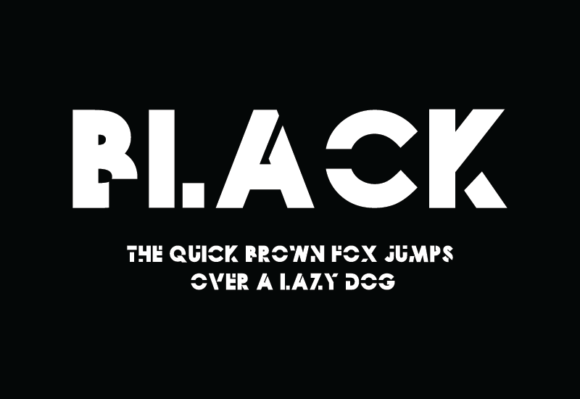
The Power of Black Font: Elevate Your Designs with Confidence
I’ll never forget the time I was working on a logo design project for a trendy new coffee shop. My client wanted a bold, eye-catching font that would stand out on their packaging and website. I spent hours scouring the internet for the perfect font, but nothing seemed quite right. That was until I stumbled upon Black Font – a bold and fat modern sans-serif font that instantly caught my attention. In this article, I’ll share my experience with Black Font, its features, and how to make the most of it in your designs.
My Honest Review of Black Font
So, what do I love about Black Font? Here are a few things that make it a standout:
- ✨ Bold and eye-catching: Black Font is perfect for making a statement in your designs. Its bold weight and modern sans-serif style make it perfect for logos, headings, and titles.
- ✅ Balanced proportions: The font has a balanced and harmonious structure, making it easy to read and visually appealing.
- 💯 Versatile: Black Font can be used in a variety of design contexts, from minimalist aesthetics to bold and edgy designs.
While Black Font is an excellent choice, there are a few quirks to be aware of:
- 🤔 Limited flexibility: Black Font is a bold font, and as such, it may not be the best choice for body text or smaller font sizes.
- ⚠️ Overuse: Because of its bold nature, it’s easy to overuse Black Font. Make sure to balance it with other fonts and design elements to avoid overwhelming your design.
The Story Behind Black Font
Black Font was designed with the goal of creating a bold and modern sans-serif font that would make a statement in any design. Inspired by the works of renowned typographers, the designer aimed to create a font that would be both versatile and eye-catching. With its balanced proportions and bold weight, Black Font is perfect for designers who want to add a touch of confidence to their designs.
| Font Name | Black Font |
| Author | GraphicsNinja |
| What is Black Font? | Black Font is a bold and fat modern sans-serif font designed for making a statement in your designs. |
| Can I use Black Font for body text? | While Black Font can be used for body text, it’s not recommended due to its bold weight. It’s best suited for headings, titles, and bold statements. |